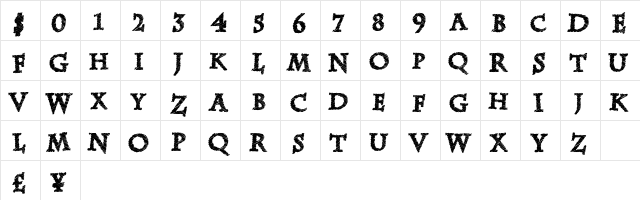
ZebraDisco Regular
| Foundry | Xerographer Fonts |
| Designer | Xerographer Fonts Max Infeld |
Design Context for ZebraDisco Typeface
ZebraDisco takes a measured approach to typography — its balanced proportions and neutral character make it a reliable workhorse for both digital and print work.